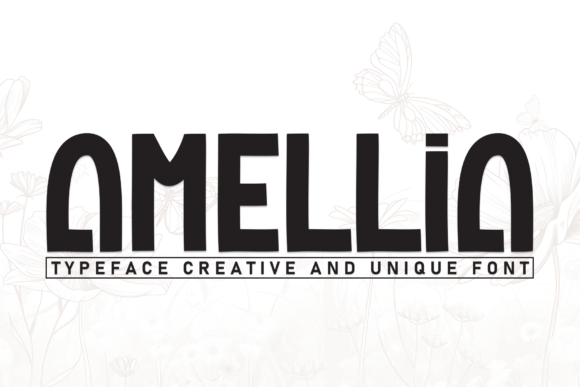
Discovering the Perfect Balance: Introducing Amellia Font
Have you ever found yourself scrolling through design inspiration boards, searching for that perfect font to elevate your project? It’s a feeling we’ve all been there – the thrill of discovery, the rush of excitement as a font catches your eye, and the instant desire to learn more about it. For designers, finding the right font can make all the difference between a good design and a great one.
Enter Amellia Font, a neat and casual display font that perfectly blends clarity with a relaxed, approachable vibe. Its clean lines and friendly letterforms make it ideal for headlines, posters, packaging, and branding that aims to feel modern yet laid-back. With its balanced structure and playful energy, Amellia Font brings personality to any project without overwhelming the message.
As a valuable addition to any designer’s toolkit, Amellia Font offers the perfect combination of style and readability, making it a go-to choice for designs that require a touch of personality without compromising on message.
Amellia Font Key Features
- Font Family: Amellia Font is a modern sans-serif font family, ideal for digital and print media.
- Character Set: Includes a wide range of characters, including Latin, Cyrillic, Greek, and Extended Latin characters.
- Unique Characteristics: Features a clean and minimalist design, with subtle rounded edges and a highly legible x-height.
Amellia Font Review
I recently had the chance to work with the Amellia font, and I must say it’s a mixed bag. On the one hand, here are some things that work well: ✨ It has a beautiful, elegant feel to it, making it perfect for high-end branding and luxury products. ✨ The font is highly customizable, with a wide range of weights and styles to choose from. ✨ It also supports a variety of languages, which is a big plus for international projects.
However, there are some limitations to consider: ⚠️ The font can be quite dense, which may make it difficult to read at smaller sizes. ⚠️ It also has a tendency to fall back on more basic font rendering in certain situations, which can be frustrating. ⚠️ Finally, the font’s price point is a bit steep for some budgets, especially for smaller projects.
Overall, I would say that the Amellia font is a solid choice for high-end branding and luxury projects, but it may not be the best fit for smaller projects or those with more limited budgets. With its elegant feel and high level of customization, it’s definitely worth considering, but be aware of its potential limitations.
Recommendation
Based on my experience with the Amellia font, I would recommend it to designers who:
- Are working on high-end branding or luxury projects
- Need a highly customizable font with a wide range of weights and styles
Tips for Getting the Most Out of Amellia Font
To get the most out of Amellia Font, experiment with different font sizes, colors, and combinations. You can also pair Amellia with other fonts to create a unique and visually appealing design.
Amellia Font is ideal for creative projects, such as:
- Invitations and event materials
- Wedding stationery and decor
Alternatives to Amellia Font for Designers
Lato Font is a clean, modern sans-serif typeface. It is perfect for use in digital products, such as apps, websites, and software. Lato Font is highly legible and versatile, making it suitable for both body text and headings. Compared to Amellia Font, Lato Font has a more minimalist and subtle design.
Merriweather Font is a classic serif typeface with a timeless elegance. It is ideal for use in print materials, such as books, magazines, and newspapers. Merriweather Font is highly readable and suitable for long blocks of text. Compared to Amellia Font, Merriweather Font has a more traditional and sophisticated design.